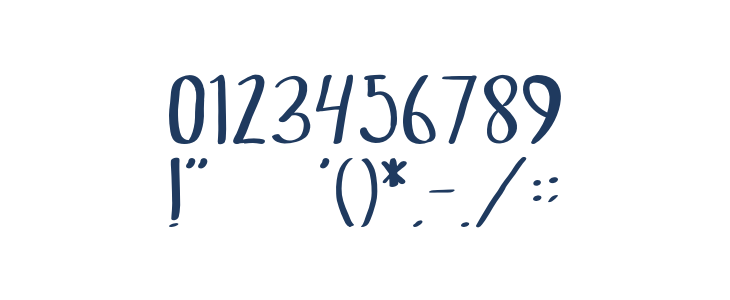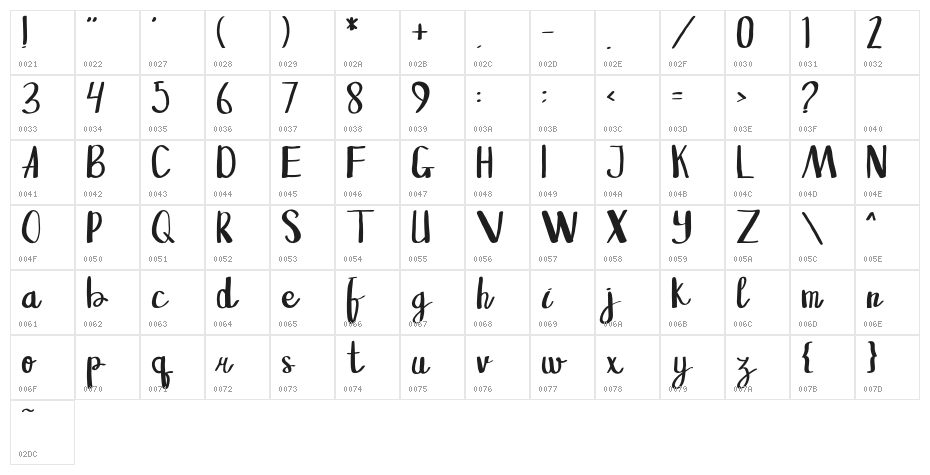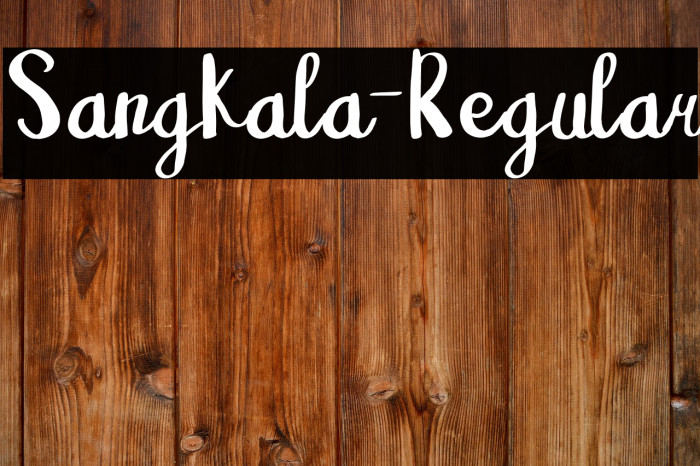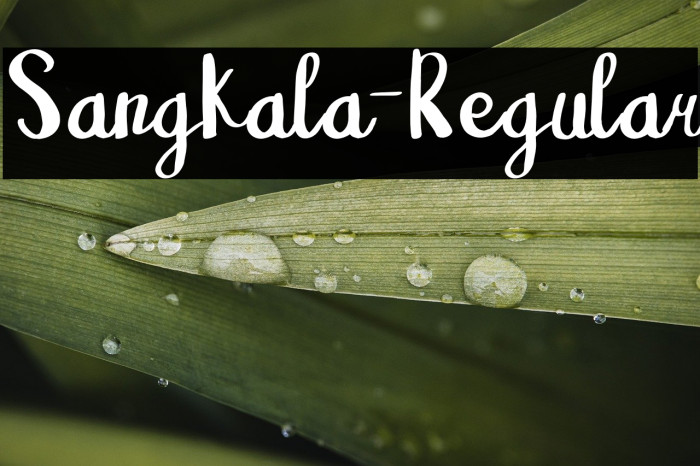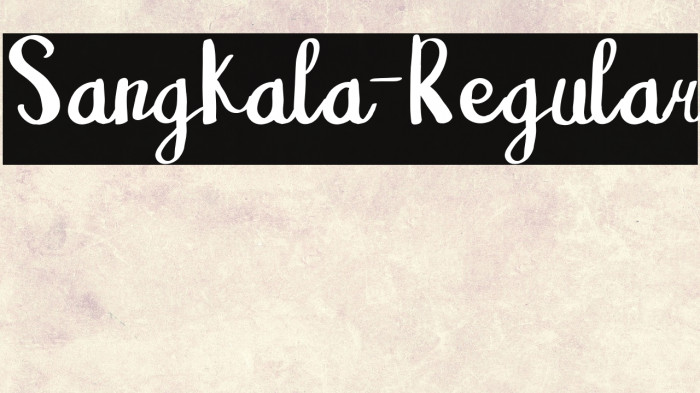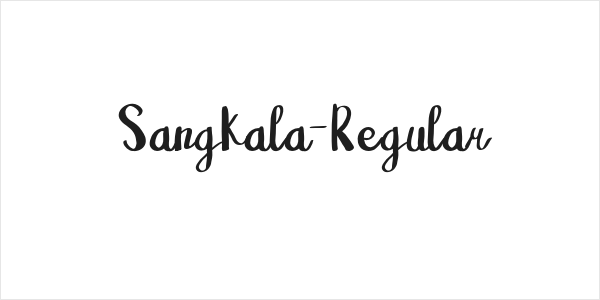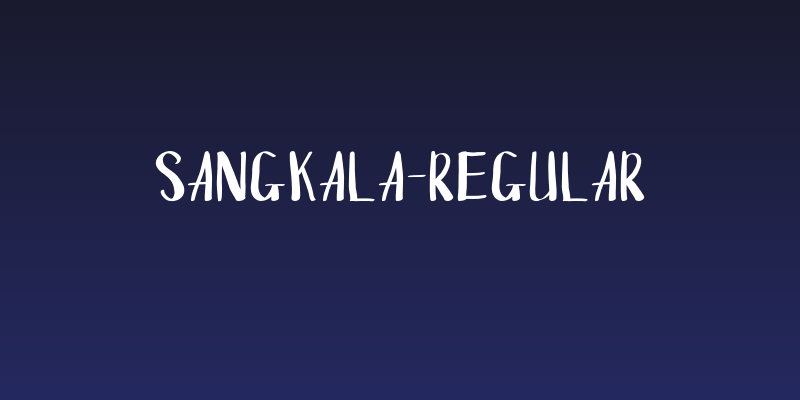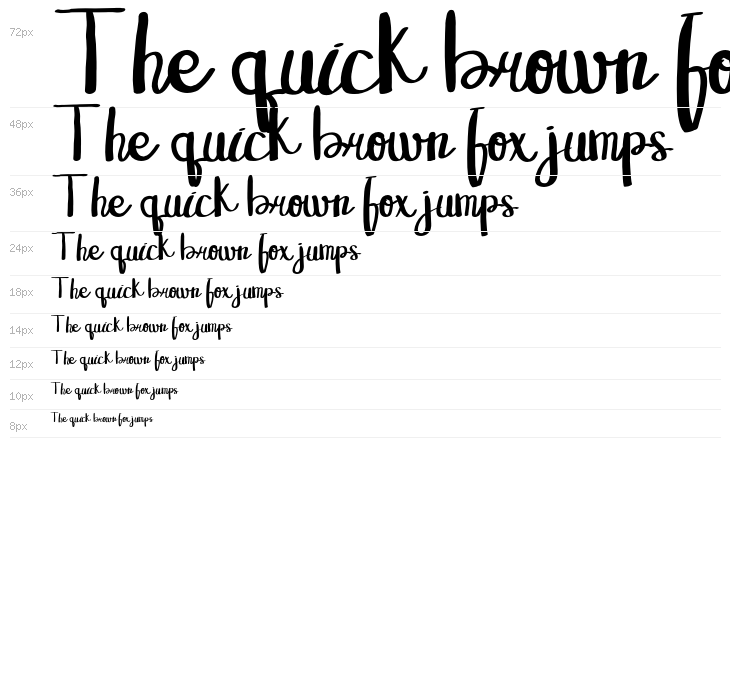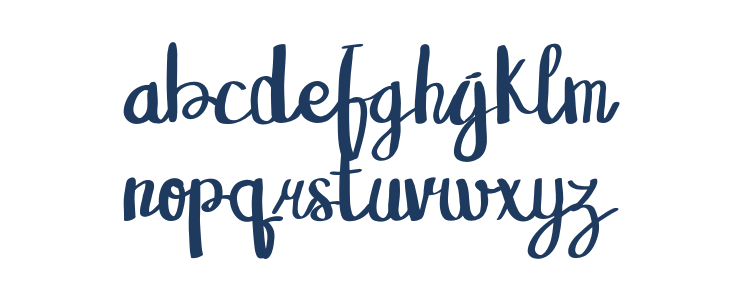
Sangkala-Regular Font
Sangkala-Regular Description
This font features a playful and energetic handwritten style, characterized by its bold and flowing strokes. The uppercase letters are tall and slightly narrow, with a casual yet structured appearance. The lowercase letters maintain a consistent flow, with some characters exhibiting unique loops and curves that add to the font's charm. Numbers are bold and clear, ensuring readability. The special characters are well-integrated, maintaining the overall aesthetic. This font's lively and informal style makes it suitable for creative and expressive projects.